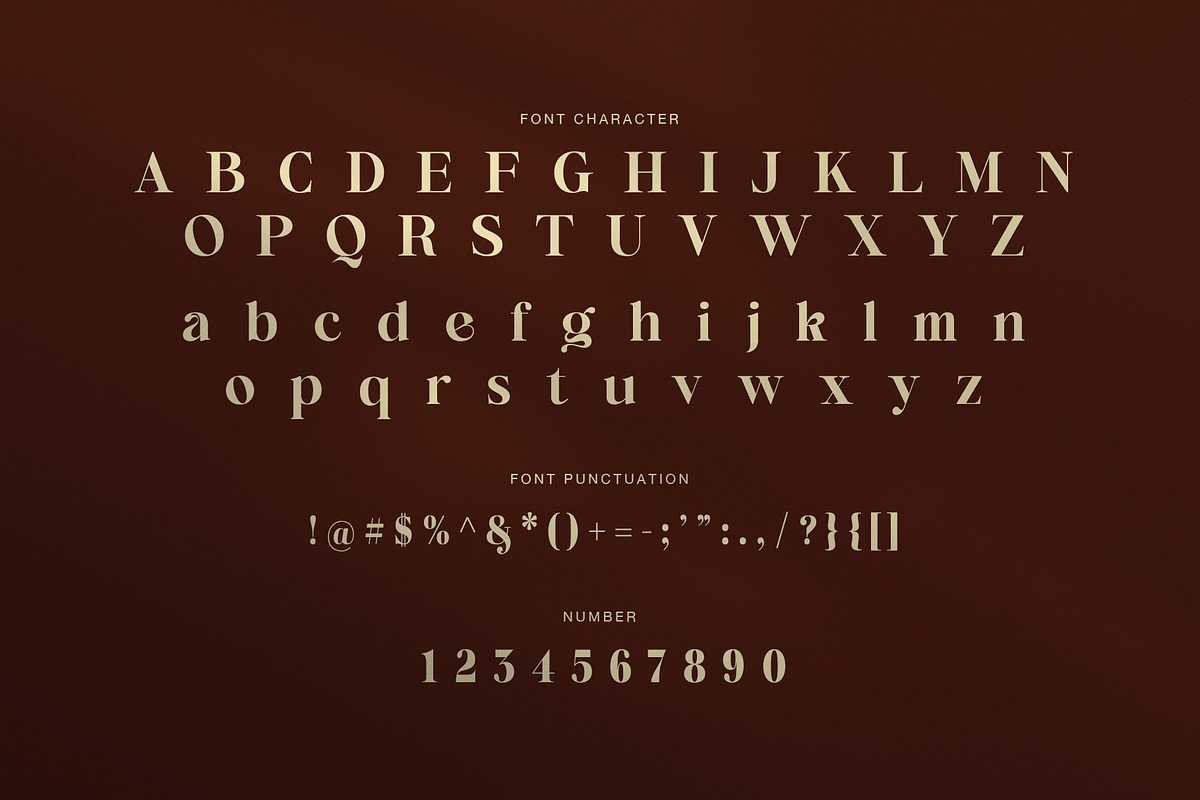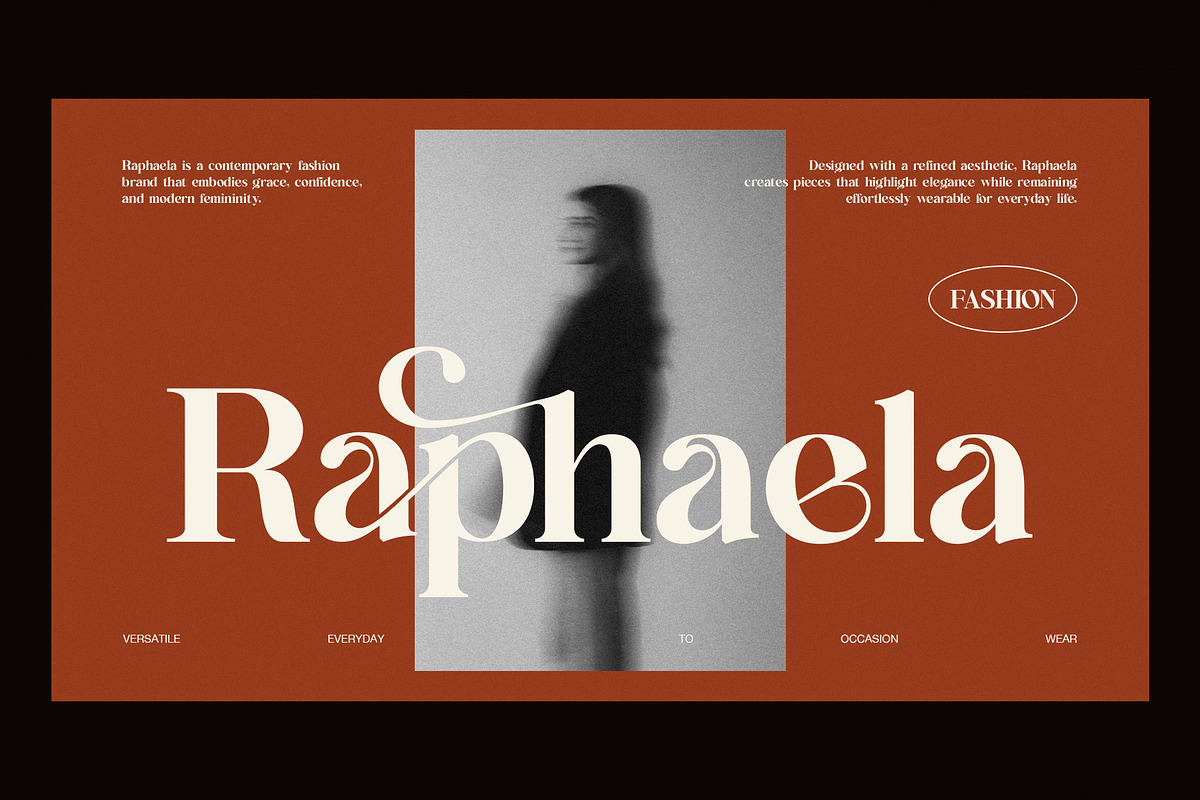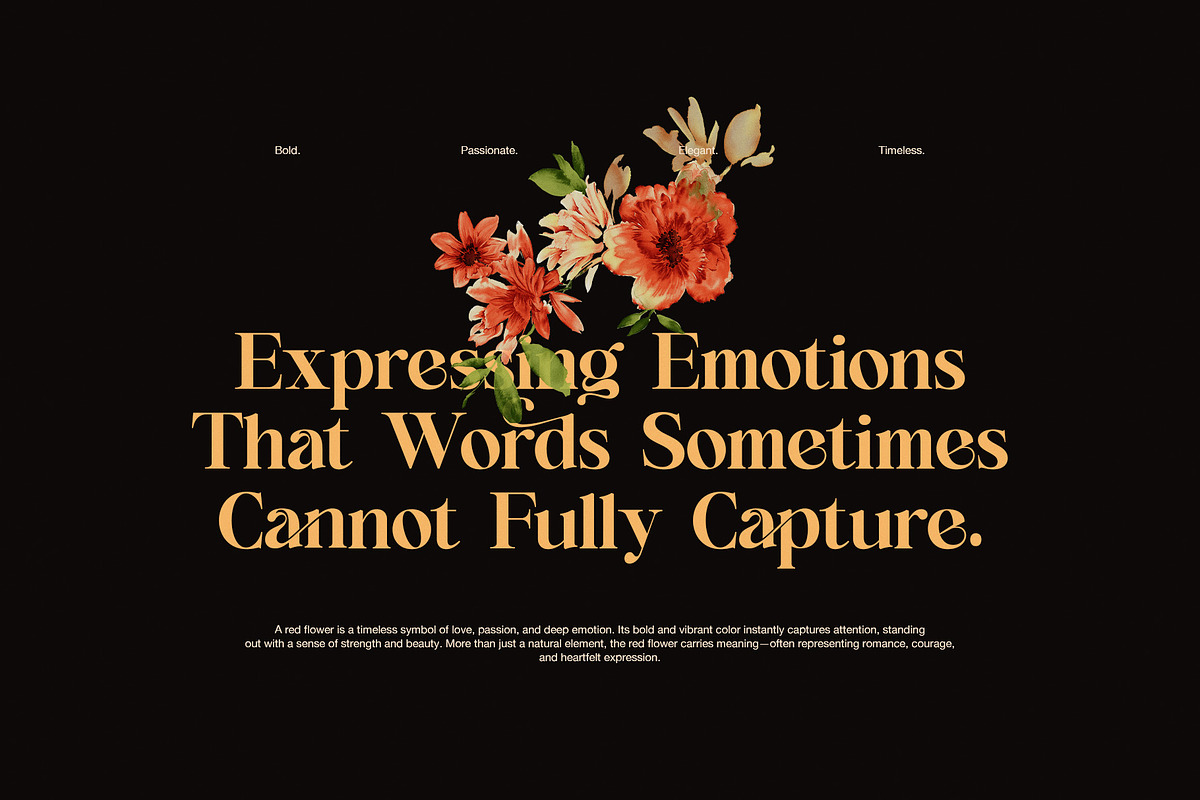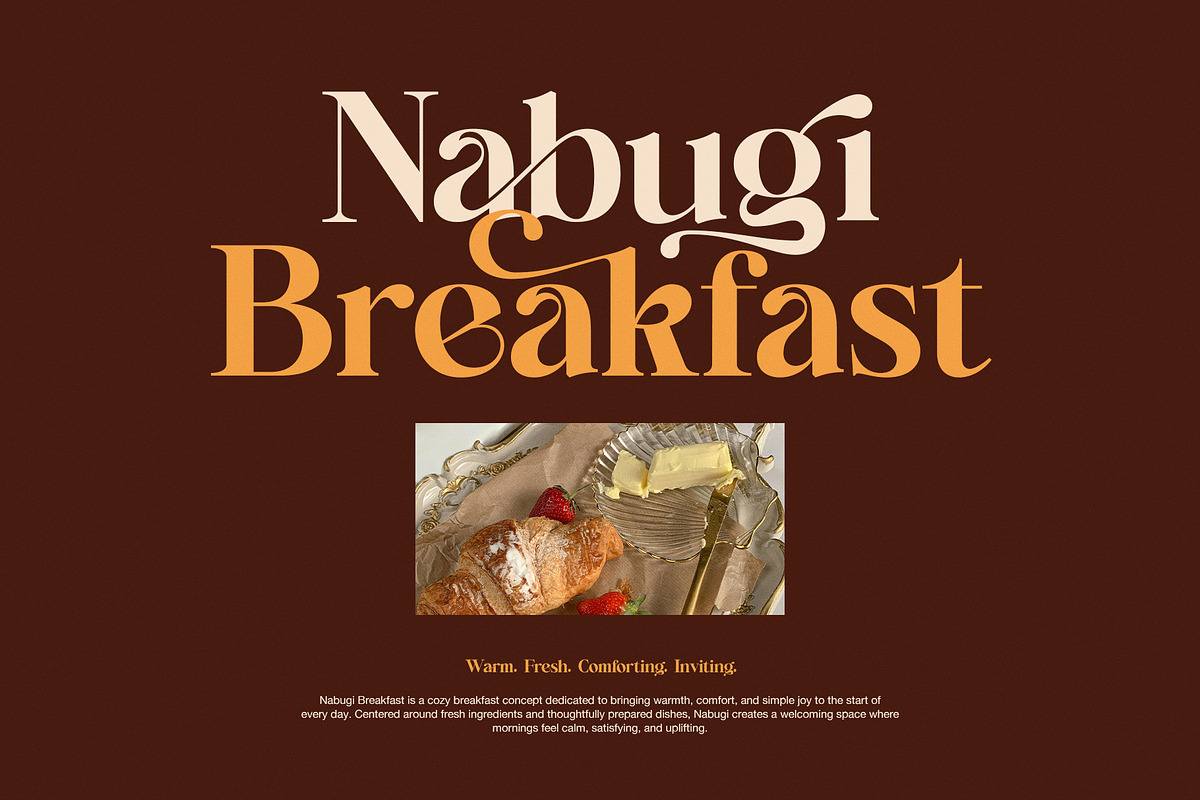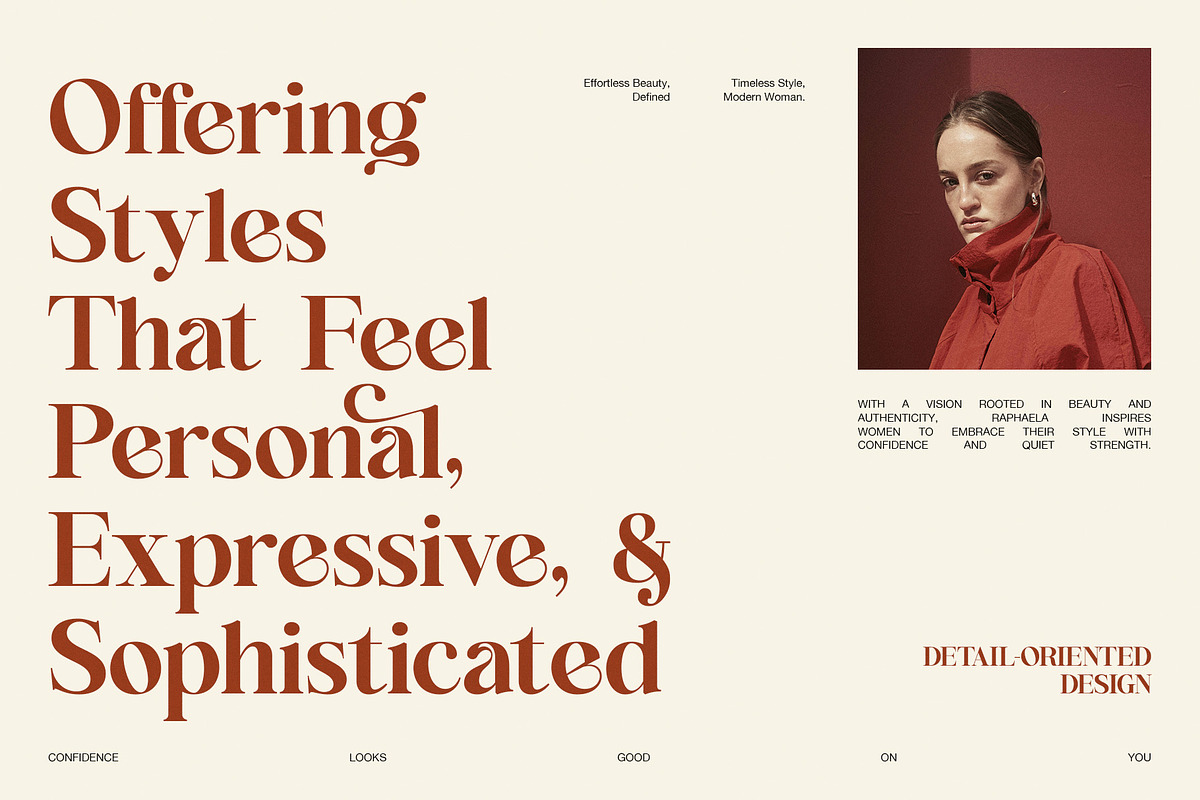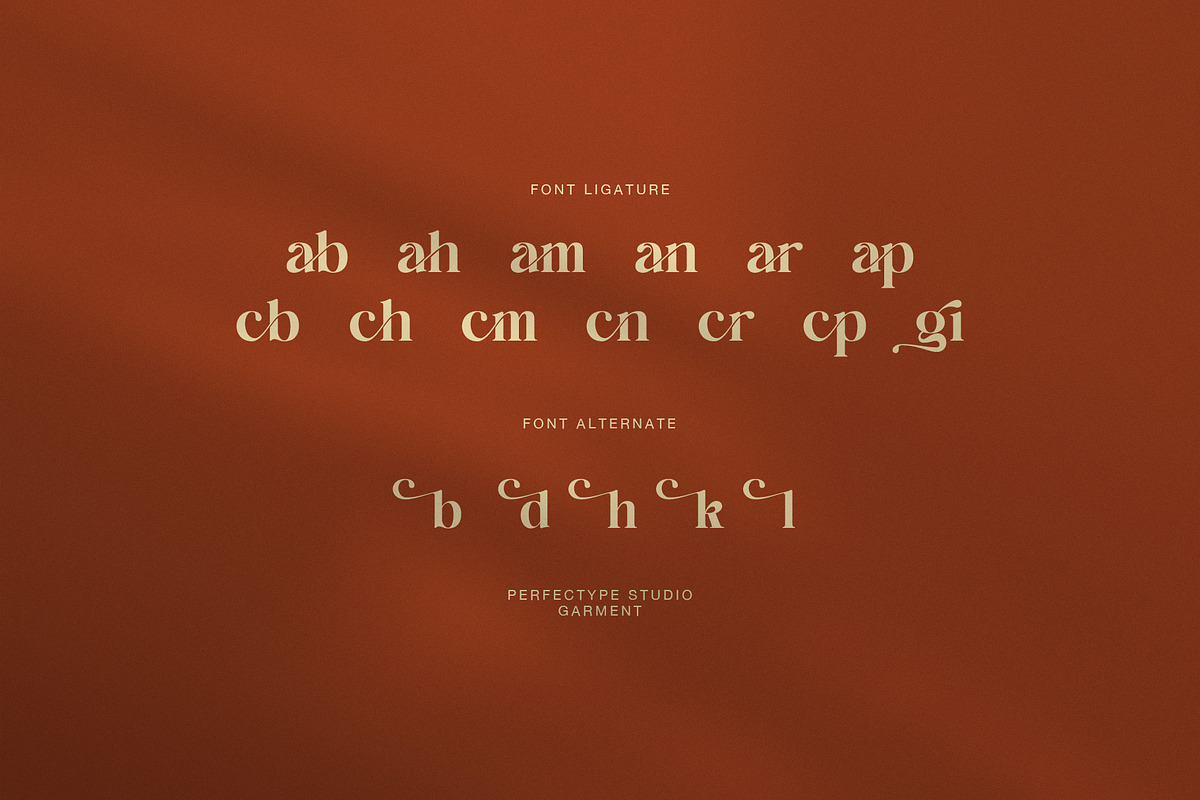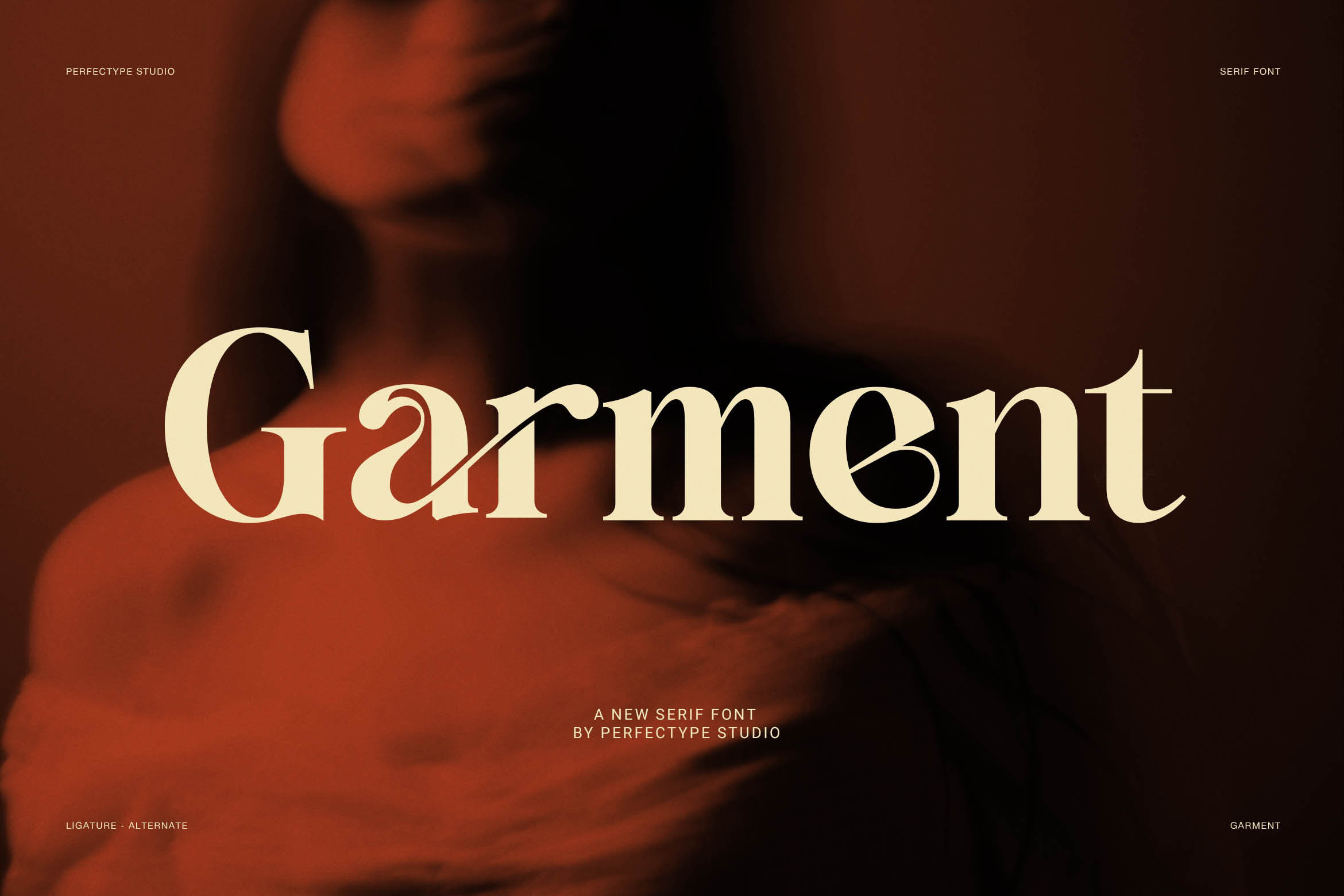
Garment Elegant Serif Font
Garment Elegant Serif Font is a stylish display typeface with a strong fashion mood and a refined modern feel. It blends classic serif structure with bold curves, soft contrast, and tasteful decorative details. As a result, it feels elegant, expressive, and highly suited for premium design work. It also carries a warm editorial tone, so it stands out in branding, headlines, and visual storytelling.
The shape of Garment is graceful, yet it also feels confident and clear. Its uppercase letters look balanced and polished, while the lowercase forms add charm through curved terminals and subtle flourishes. Moreover, the letterforms show a rich rhythm that gives each word a more custom look. Because of that, Garment does not feel flat or ordinary. Instead, it gives titles a memorable and stylish voice.
This font performs beautifully in the display examples. It looks strong in fashion branding, boutique layouts, breakfast and lifestyle visuals, floral quote compositions, and furniture presentations. Therefore, Garment feels flexible across both feminine and modern concepts. In one layout, it looks soft and luxurious. In another, it feels bold, warm, and editorial. That range makes it a smart choice for designers who need beauty and function in one serif font.
Another key strength is its ligatures and alternate characters. These features add flow, elegance, and a more crafted appearance to words. In addition, the punctuation and number set support a polished full font system. So, Garment is useful not only for logos and brand names, but also for packaging, invitations, social media graphics, posters, and product presentations.
Best uses for Garment
luxury branding
logo design
fashion editorials
boutique packaging
beauty branding
restaurant and cafe branding
furniture branding
quote design
social media graphics
headline typography
Why designers will love it
Garment Elegant Serif Font makes short text feel rich, stylish, and full of personality. Moreover, its ligatures and alternates help create a custom look without losing readability. While many serif fonts feel too plain or too formal, Garment feels warmer and more expressive. For that reason, it works very well for standout display design.
If you need an elegant serif font with modern charm, stylish ligatures, and premium display appeal, Garment is a strong choice. It brings grace, confidence, and visual impact to every layout.